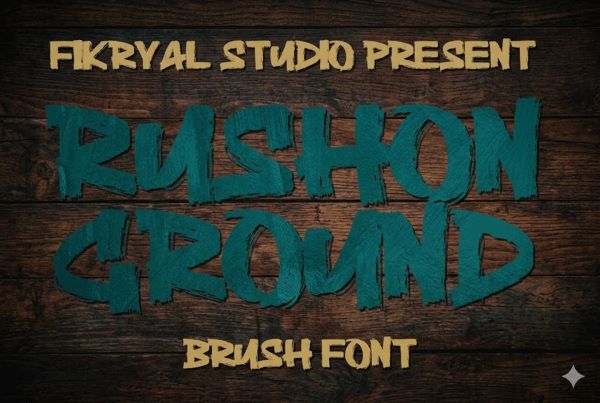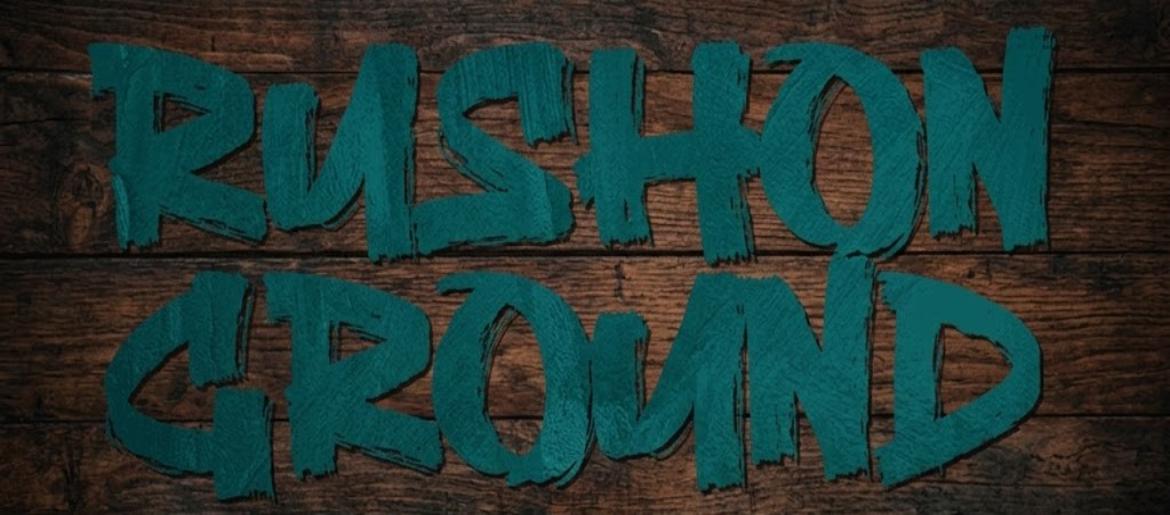
Rushon Ground Font
Rushon Ground by Fikryal Studio is a brush script with earthy, grounded energy that feels drawn with conviction and speed — like lettering produced by someone who’s done this a thousand times and trusts their hand completely. The strokes have texture and weight, grounding the design in physical craft rather than digital perfection. That authenticity makes it a strong choice for outdoor adventure branding, artisan food and drink packaging, sports apparel, music event collateral, or any project that needs to feel rooted, real, and driven. Free for personal use.